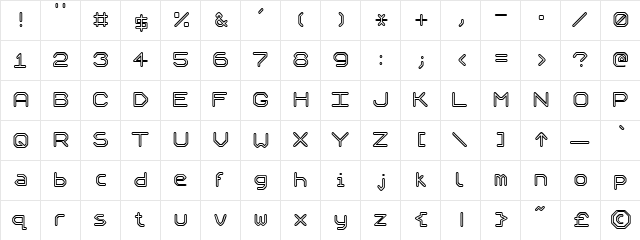
Speculum Outline Regular
Design Context for Speculum Outline Typeface
Speculum Outline brings ornamental detail and strong personality to headlines and identities, where visual impact matters more than quiet functionality.
Font Pairing: Pair with a clean neutral sans-serif for body copy to let Speculum Outline's character lead without overwhelming the composition.
Pro Tip: Use Speculum Outline exclusively at display sizes — it was designed to be seen, not read at length. Let a neutral companion handle body copy.